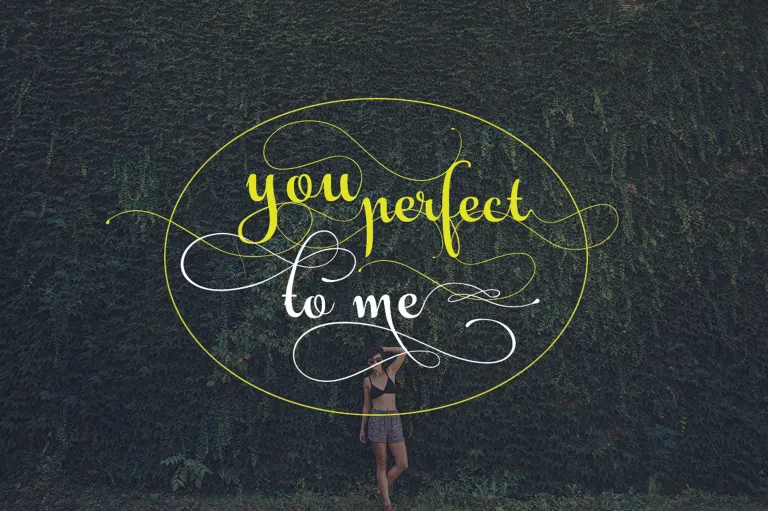
Ihlimia Romantic Script Font is perfect for wedding invitations, love letters, romantic greeting cards, engagement announcements, bridal shower decor, Valentine's Day graphics, couple photography logos, romantic novel covers, jewelry branding, and anniversary celebration materials that celebrate love and heartfelt emotions.
This font is exciting because it captures the essence of romance through beautifully flowing script letterforms that feel handwritten with love and care. The elegant curves and graceful connections between characters create an intimate, personal touch that makes every message feel more genuine, emotional, and deeply romantic for any occasion.
The Ihlimia Romantic Script Font family typically includes uppercase and lowercase letters, numerals, punctuation marks, stylistic alternates, ligatures, and swashes that allow designers to create truly customized and personalized romantic compositions with artistic flair.
Whether you're designing dreamy wedding stationery, creating heartfelt social media posts, or developing romantic brand identities that speak to the heart, Ihlimia Romantic Script Font Free Download provides the perfect typographic expression of love and tenderness. Its exquisite flowing style and passionate character make every project feel more intimate and emotionally resonant, ensuring your designs beautifully convey romance, affection, and timeless love stories that touch hearts and create lasting memories.